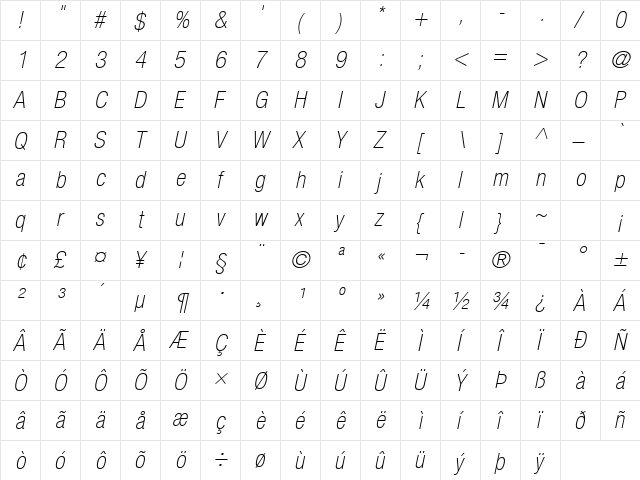
Helvetica Neue LT Com 37 Thin Condensed Oblique Font Preview
| Foundry | Linotype GmbH |
| Designer | Linotype Design Studio |
Design Context for Helvetica Neue LT Com Typeface
Helvetica Neue LT Com offers clean, dependable letterforms without strong stylistic allegiance, making it a practical choice for designers who need flexibility. The dynamic lean of this cut emphasises speed and emphasis in any layout. The delicate stroke weight brings airiness and refinement to layouts. Its narrow stance lets it pack a punch even in space-constrained designs.
Pro Tip: Try Helvetica Neue LT Com for annotation and caption copy alongside an upright companion — the contrast in angle creates a dynamic but ordered typographic system.